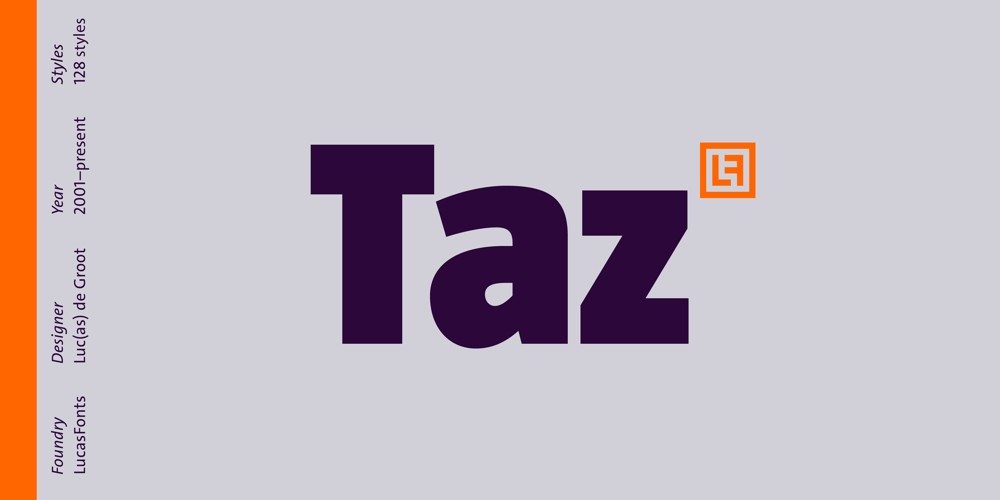
Taz Font Family was designed by Luc(as) de Groot and published by LucasFonts. Taz contains 128 styles and family package options. Although the Taz family was designed for newspapers, it works equally well in many other contexts. The fonts have been used in glossy magazines, sales catalogues and corporate brochures, for instance. Taz is appreciated for its readability in longer texts at medium sizes.